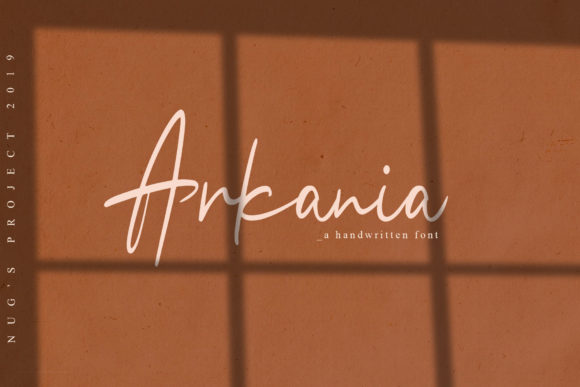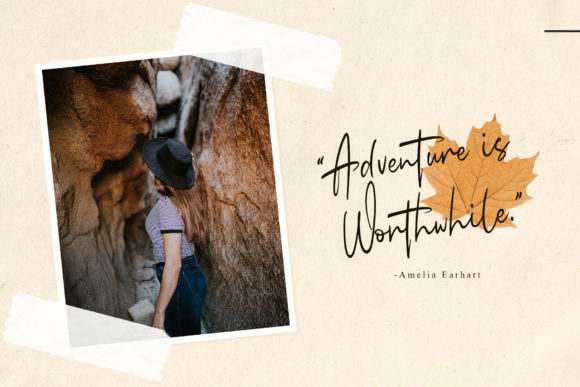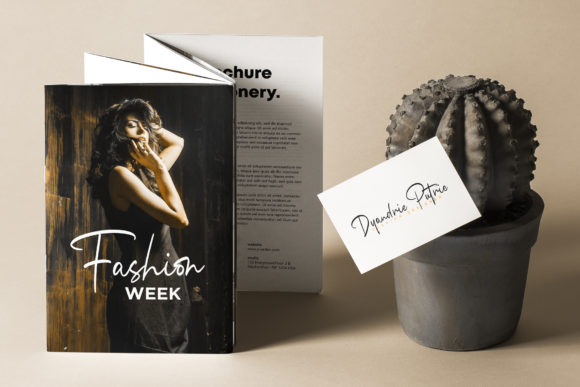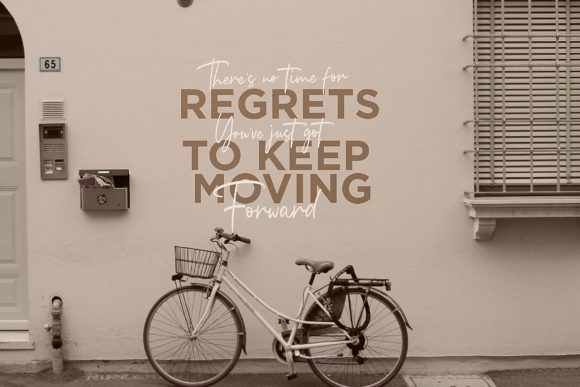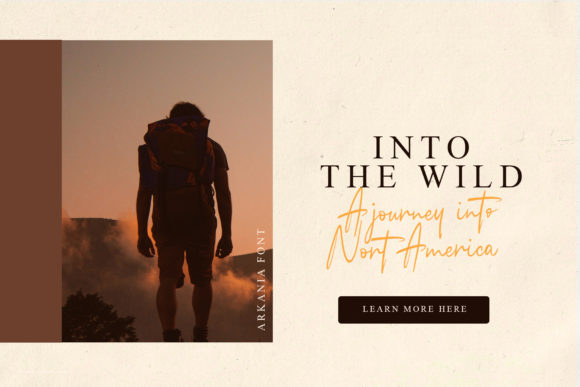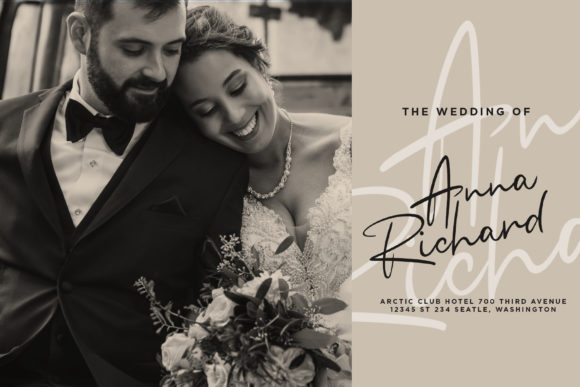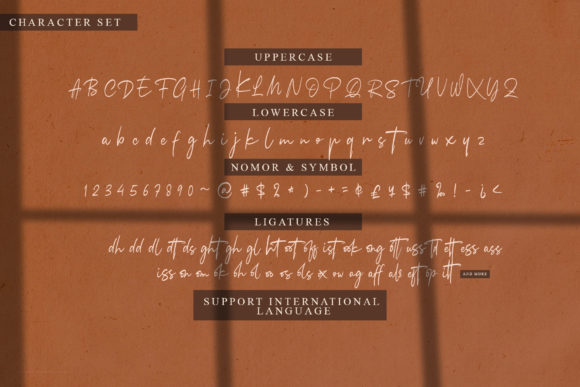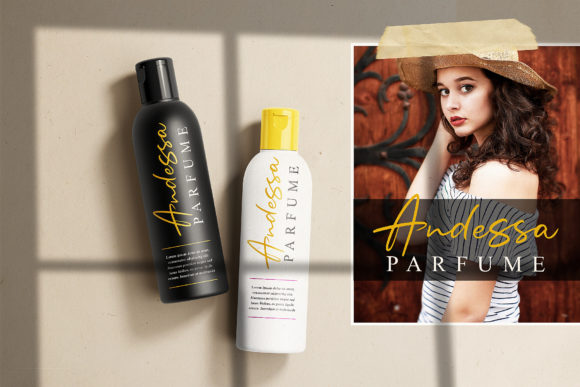
HomeScript FontsArkania Font Script Fonts Arkania Font FacebookXPinterestWhatsApp Arkania Font Poster 2 Arkania Font Poster 3 Arkania Font Poster 4 Arkania Font Poster 5 Arkania Font Poster 6 Arkania Font Poster 7 Arkania Font Poster 8 About Arkania Font Arkania is a modern script with a smart and authentic vibe. Fall in love with its contemporary simplicity. DOWNLOAD ON CREATIVE FABRICAThis font is sold and delivered by Creative Fabrica. Font Canyon may earn a commission if you buy through this link. People also explored Handmade Font MFC Haute Monde Monogram Gemstone Font Nikad Robom Font Entourage Marjory Font Children Memories Font Black Passion Font Vinegart Font 359 0 TagsArkania Font Previous articleHello Monday FontNext articleGreatfella Font LEAVE A REPLY Cancel reply Comment: Please enter your comment! Name:* Please enter your name here Email:* You have entered an incorrect email address! Please enter your email address here Website: Save my name, email, and website in this browser for the next time I comment. Personal Use Free Wintersoul Personal Use Free Read more about this font Mellow Personal Use Free Read more about this font Vogue Font Personal Use Free Read more about this font Rookie Mastering Personal Use Free Read more about this font BLOG The 10 Best Handwriting Fonts to Add Personality to Your Designs 10 of the Best Handwriting Fonts for Adding Personality to Your Designs There will undoubtedly be no other better choice than handwriting fonts to give... How to Cut Any Font on Cricut: Convert a Font to SVG (Free) Best Fonts for YouTube Videos: Make Your Thumbnails Stand Out 5 Fonts That Will Dominate Design Trends in 2026